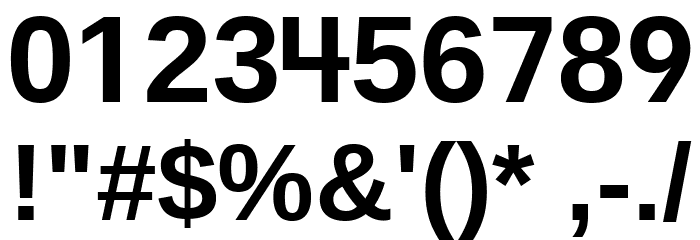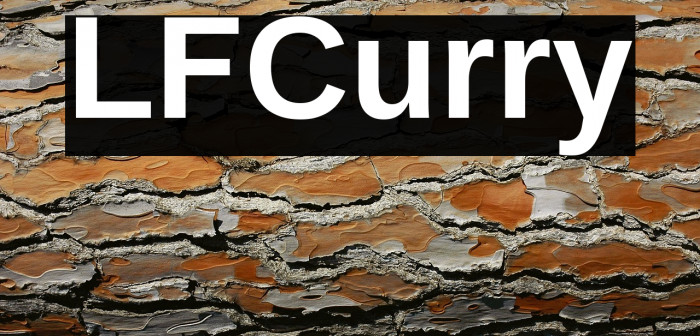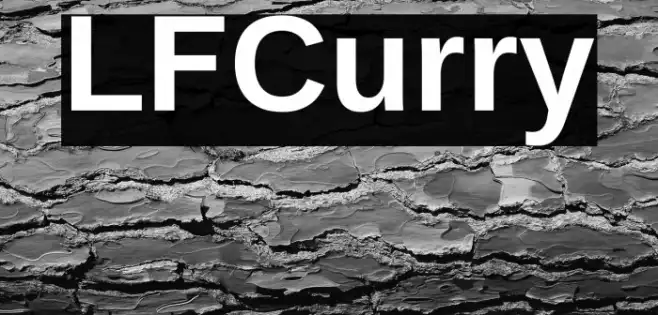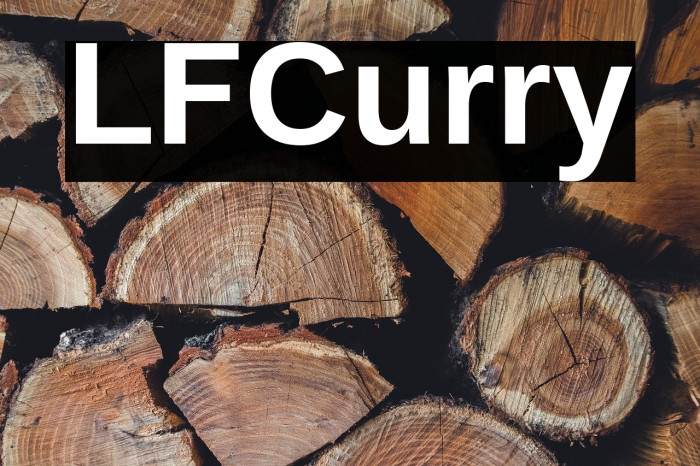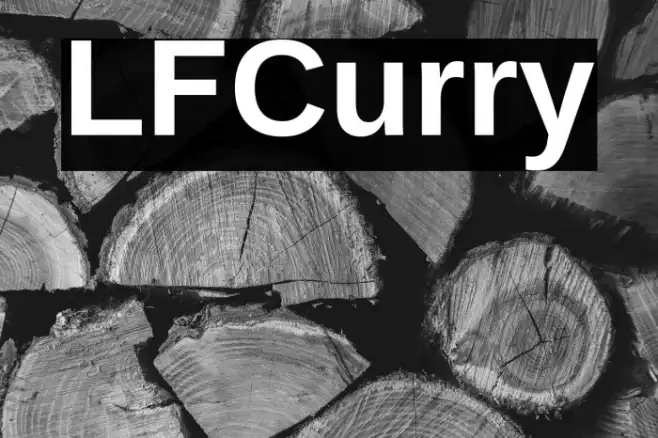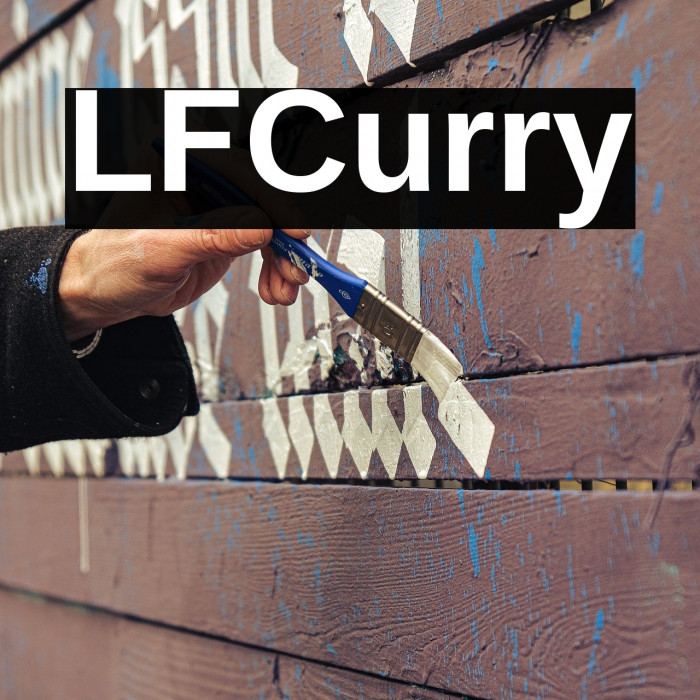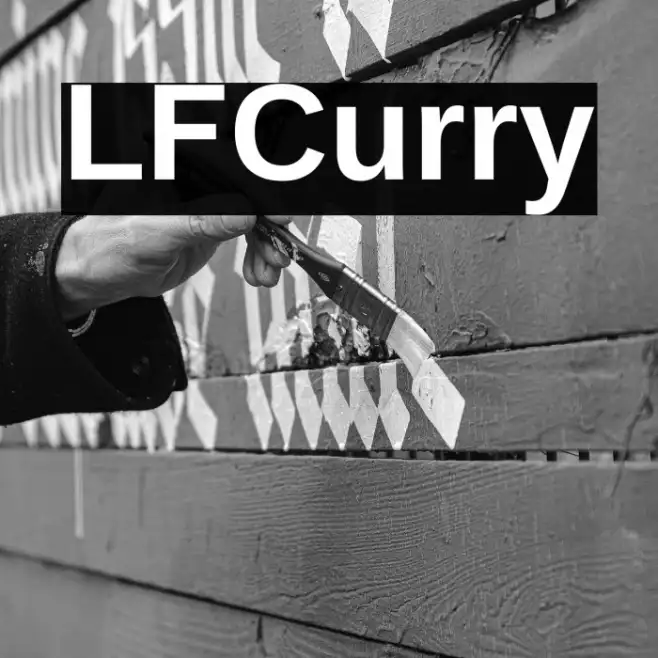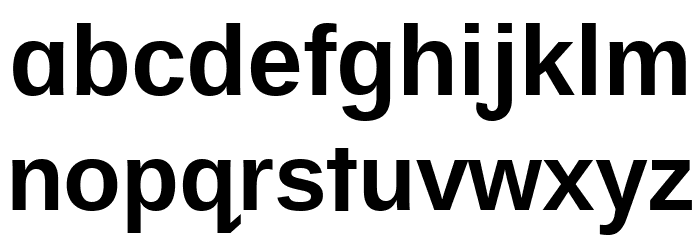
LFCurry Font
LFCurry Description
This font features a clean and modern sans-serif style with uniform stroke widths, providing a straightforward and professional appearance. The characters are well-proportioned, with a balanced height and width that ensures readability across various sizes. The uppercase letters are bold and assertive, while the lowercase letters maintain a consistent and harmonious flow. The numerals are clear and distinct, making them suitable for both text and numerical data. Special characters are designed with precision, enhancing the font's versatility for different applications.
| Proposed Projects | Ideal for corporate branding, digital interfaces, print media, and signage due to its clarity and modern appeal. |